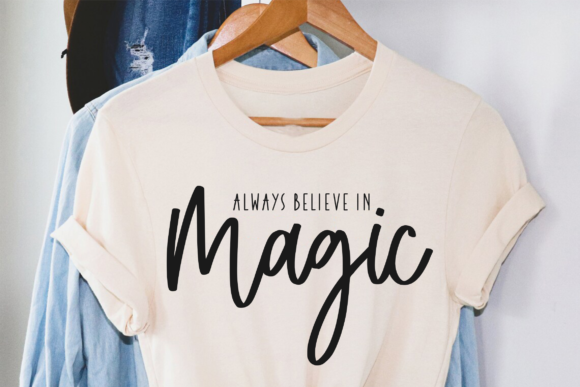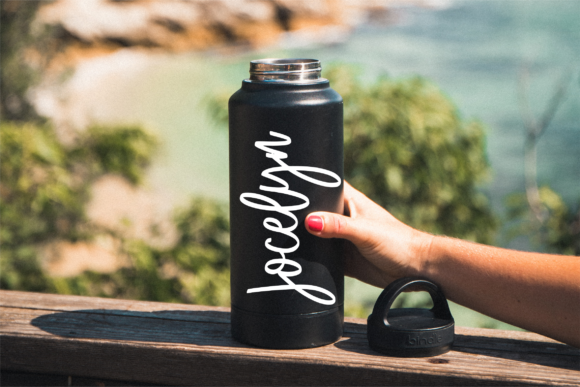
Mistigralley Font
db-ku.com - Script & Handwritten -- Mistigralley is a stylish script font. It looks stunning on wedding invitations, thank you cards, quotes, greeting cards, logos, business cards and every other design which needs a handwritten touch.